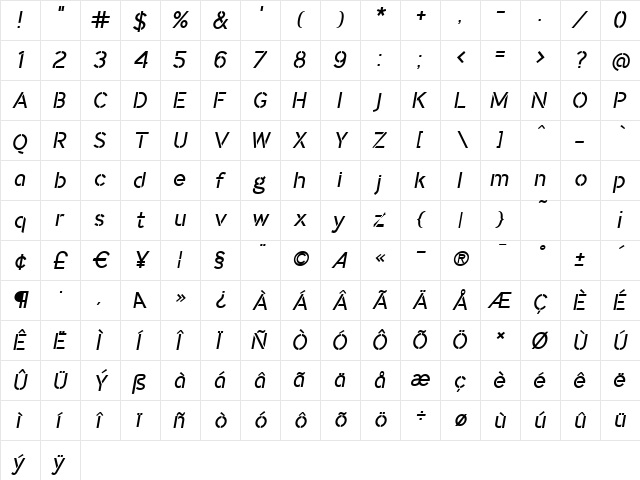
IdentikalSans StencilItalic
| Style | StencilItalic |
Design Context for IdentikalSans Typeface
IdentikalSans has the rough pragmatism of spray-painted stencil signage, adding a raw, street-level authenticity to designs. The slanted form adds forward momentum and visual energy.
Ideal for industrial branding, streetwear, military-adjacent aesthetics, and urban signage projects.
Pro Tip: Pair IdentikalSans with raw, utilitarian design elements — exposed concrete textures, flat colour, and minimal ornamentation suit it well.